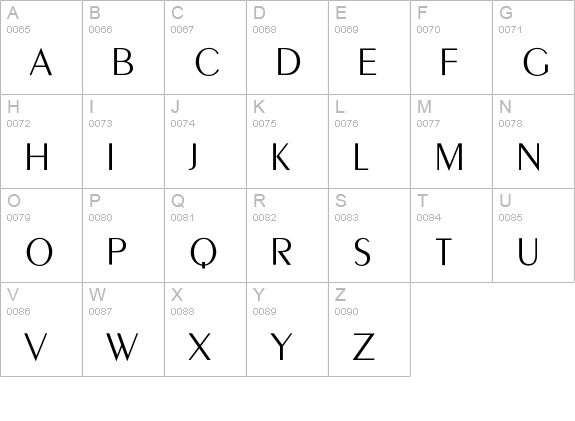
French Vogue Font Details
Introducing the exquisite French Vogue font, a timeless and elegant typeface that exudes sophistication and luxury. With its sleek lines and classic styling, this font is perfect for adding a touch of Parisian chic to any design project. The French Vogue font captures the essence of high fashion and glamour, making it ideal for editorial layouts, fashion magazines, and branding materials. What's even more fabulous is that the French Vogue font is available for free download at FontsMarket.com! Now, you can effortlessly incorporate this stunning typeface into your creations without any cost. Elevate your designs with the allure of French Vogue and make a statement that is both refined and effortlessly stylish. Download it today and let your creativity shine with this beautiful font.